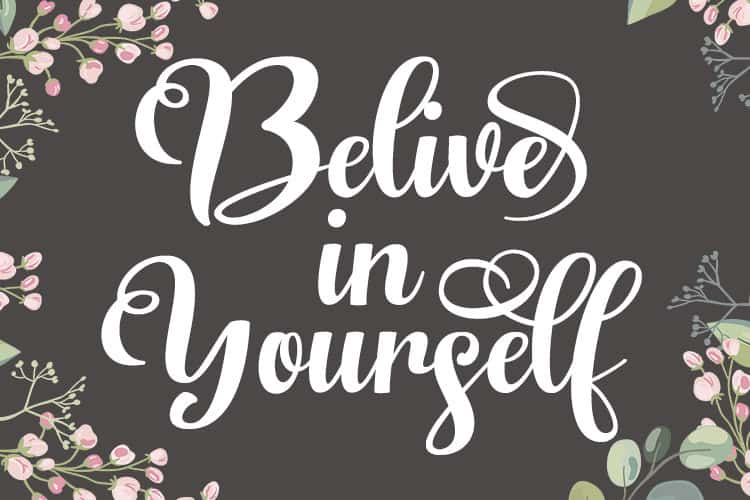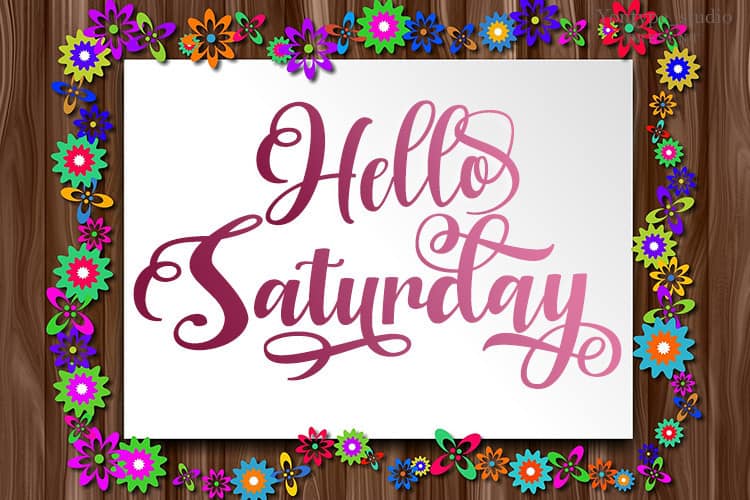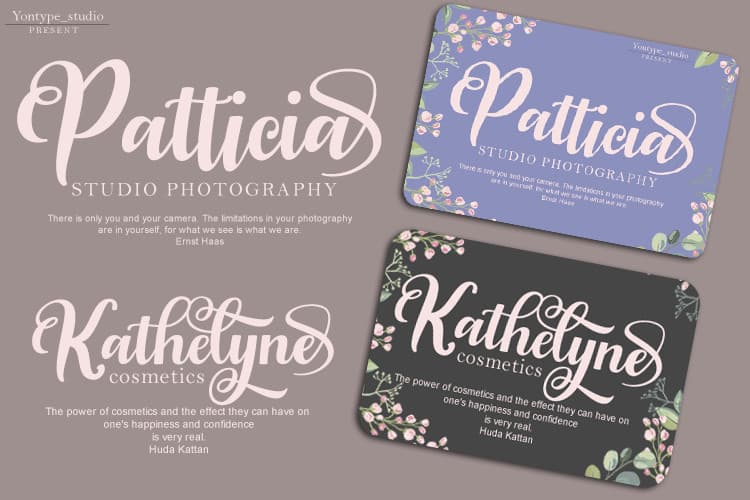
Regina Bold Script Font
Introducing Regina Bold Script Font, a beautiful script font. Regina is inspired by a bouncy script style, this font is a fun theme that is great for displays, t-shirt designs, crafts, quotes, logo types and more.